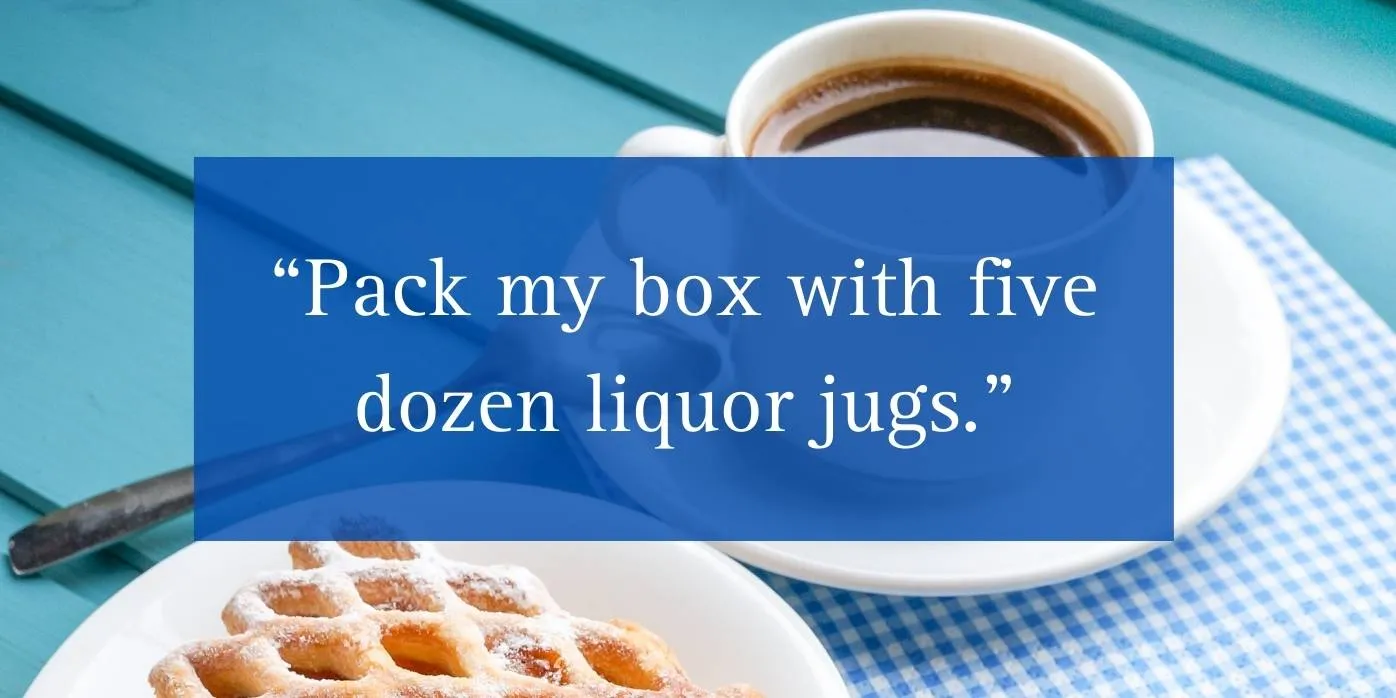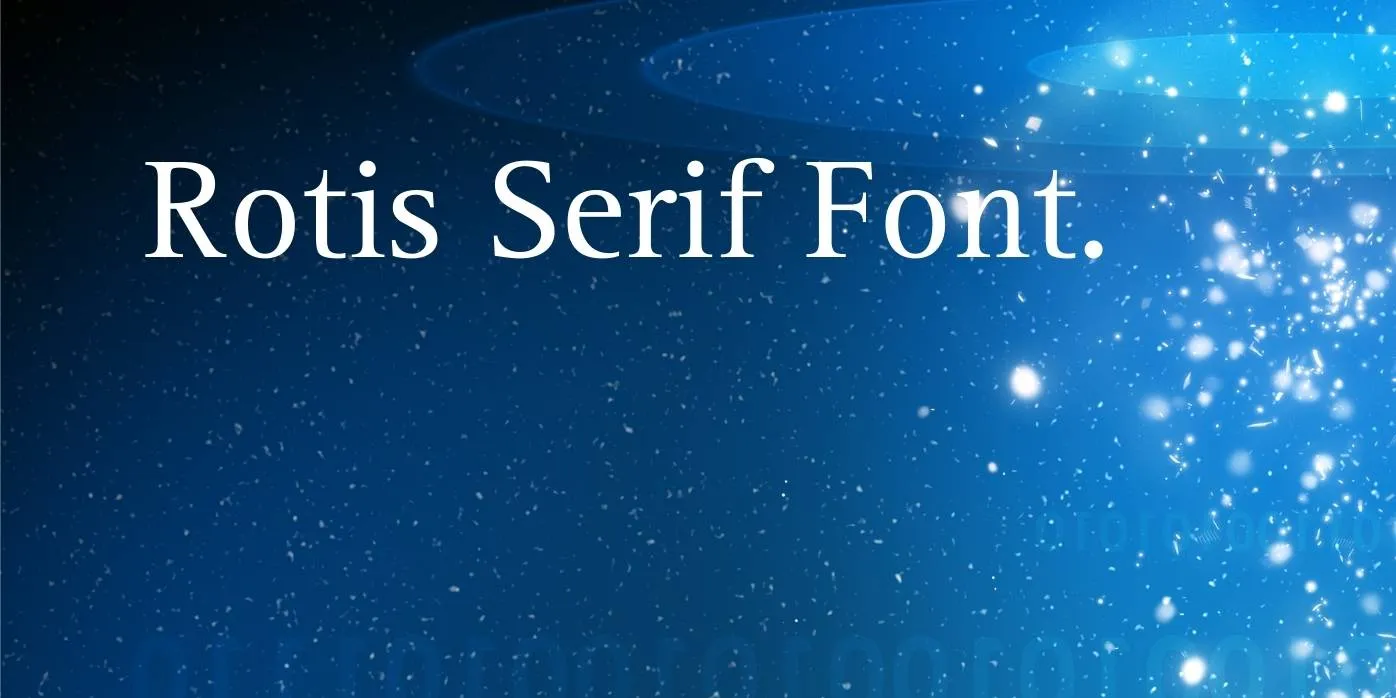
Rotis Serif Font
Rotis Serif Font was developed and published by Otl Aicher. It is a Serif typeface. This cute typeface is with humanist characteristics. The strokes are wide, and the counters are large and open.
The overall effect is very balanced and readable. Its copy and paste are very perfect for different designs. This font family has many different weights and styles, so it can be used for a variety of applications. The font is most commonly used for body text in magazines and newspapers.
If you are looking for a versatile and readable typeface, then it is perfect. It is suitable for the CSS.